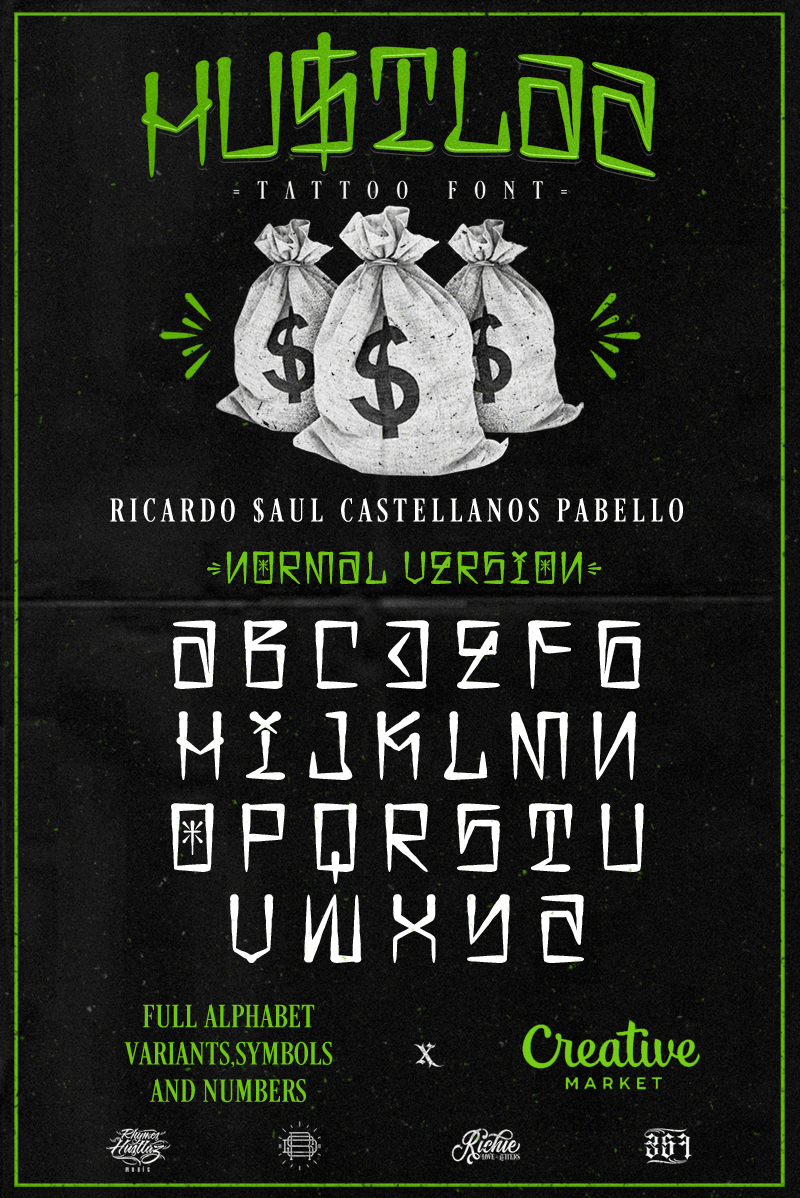
=FULL VERSION ON $ALE x CREATIVE MARKET= HU$TLAS is a typeface inspired by the style of letters of the urban culture of Cholos / Gangs, by Ricardo Saul Castellanos Pabello "Richie Mx" in the design studio "Riders on the Storm Design" MANY THANKS FOR SUPPORTING MY WORK Follow me on my different social networks: Instagram: @richiemx1 Facebook page: Riders on the Storm Design 624/357 Clica / Rhymes Hustlaz / Calavera Streetwear Los Cabos, Baja California Sur, M�xico |